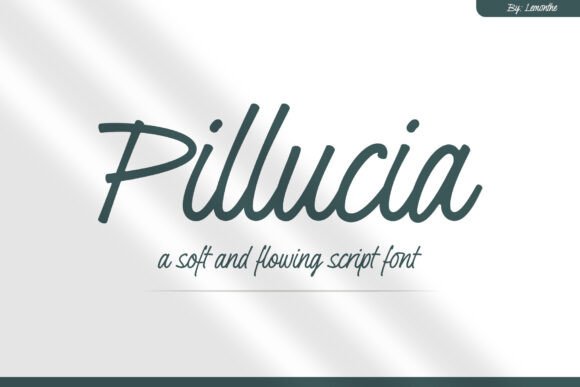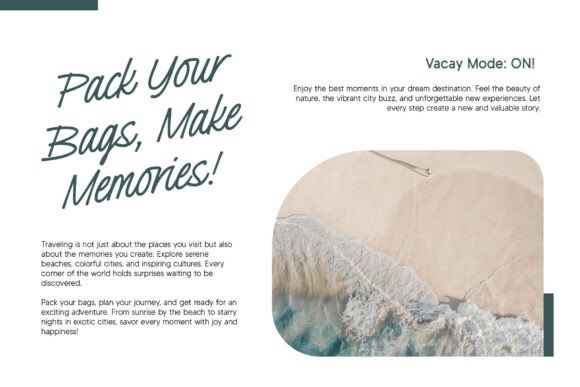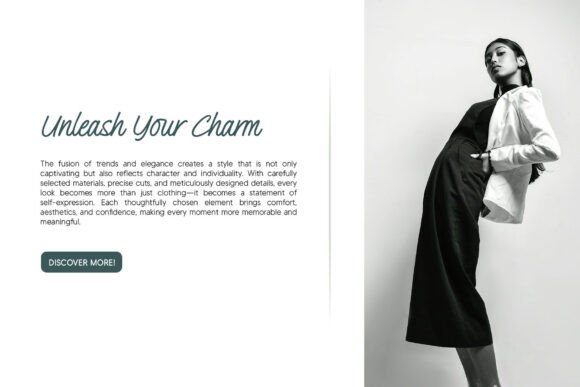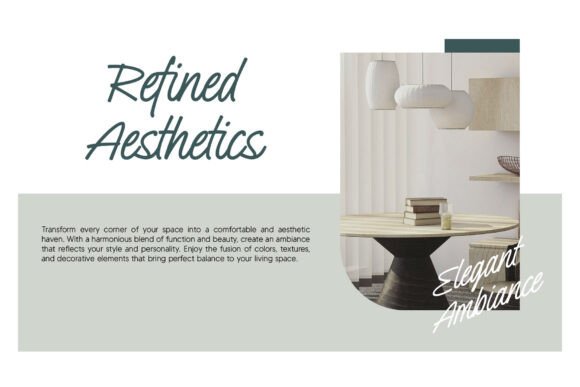
Pillucia Font: Elegant Script for Wedding Invitations & Branding
About the Pillucia Font
Introducing the Pillucia Font, a beautifully crafted typeface designed to elevate your creative projects. Pillucia is a script font with a soft and flowing appearance. It features smooth letterforms that are easy to read, making it suitable for various purposes such as branding, invitations, product packaging, and more. With a simple yet elegant design, Pillucia adds a professional touch to any project.
Pillucia’s soft elegance makes it ideal for projects requiring a touch of sophistication, such as wedding invitations, luxury branding, or product packaging for beauty or lifestyle brands. It excels in headlines, short quotes, and logos, where its graceful curves shine. However, its flowing nature makes it less suitable for body text or UI elements requiring high readability at smaller sizes.
Pairing Pillucia effectively requires considering its gentle character. A clean sans-serif like Lato or Open Sans provides a strong, modern counterpoint, while a classic serif such as Garamond adds a timeless touch. For a more playful feel, a rounded sans-serif font could be considered.
Pillucia’s overall personality is best described as elegant and refined, yet approachable. It conveys a sense of calm sophistication without being overly formal.